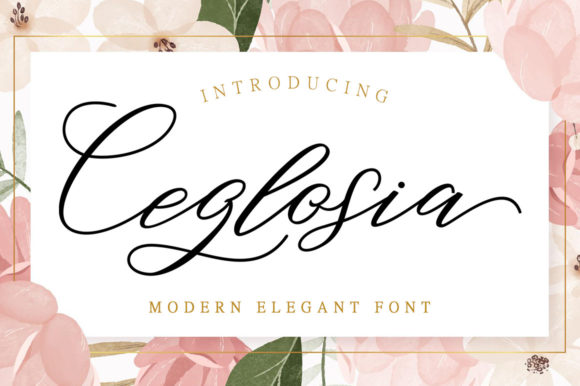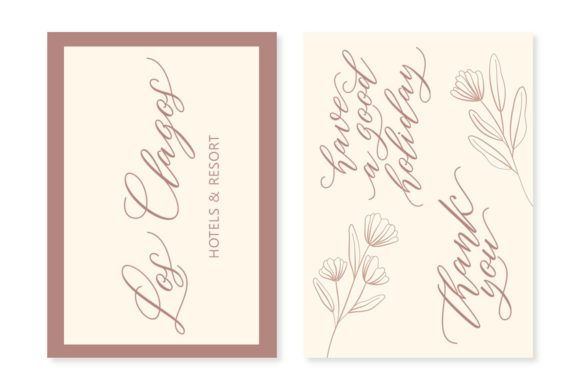
About Ceglosia Font
Ceglosia is a wistful and sweet calligraphy typeface with characters that dance along the baseline. It will add a luxury spark to any design project that you wish to create! This font is PUA encoded which means you can access all of the amazing glyphs and ligatures with ease!